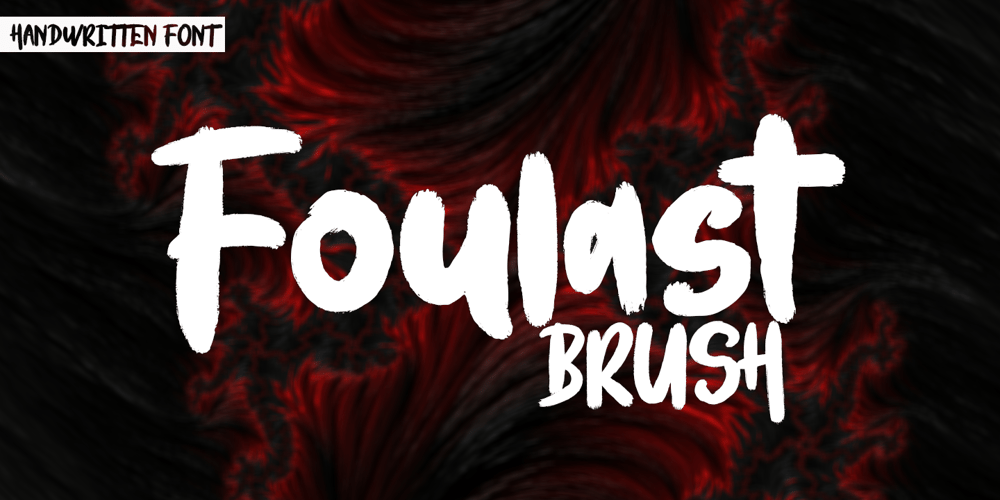
Foulast Font Family was designed by Andri Kurniawan and published by Struggle Studio. Foulast contains 1 styles and family package options. Foulast is a very quirky handwritten font right now, it has 180+ extravagant Glyphs of variety, making this font really cool.